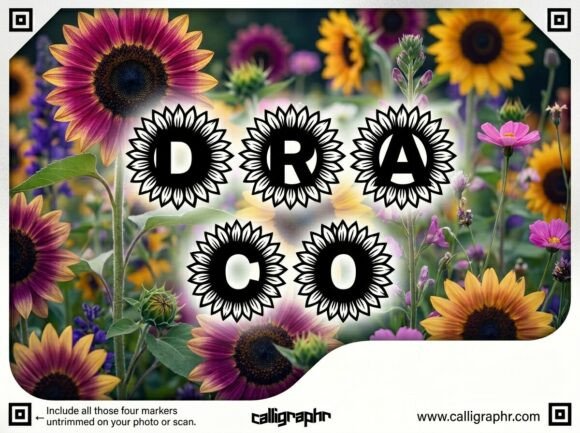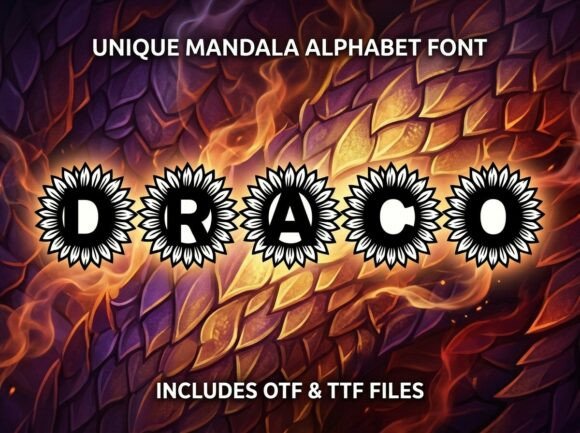
Unleash the Mystical Power of Draco Font: A Spiritual and Legendary Display Font
Are you a designer or craft looking for a font that can capture the essence of the mystical and legendary? Look no further than Draco Font, a high-impact display font that embodies a spiritual and legendary soul. This stunning font features bold, solid letterforms uniquely encased within rhythmic, hand-drawn mandala sunbursts, reminiscent of ancient dragon scales or sacred floral geometry.
The Inspiration Behind Draco Font
Draco Font is inspired by the mystical and legendary creatures of ancient mythology, particularly the dragon. The font’s design is characterized by its heavy graphic weight and ethereal personality, making it perfect for designs that require a sense of power, spirituality, and mysticism. The hand-drawn mandala sunbursts that encase each letterform add a touch of sacred geometry, making Draco Font a unique and eye-catching addition to any design.
Key Features of Draco Font
So, what makes Draco Font so special? Here are some of its key features:
- Bold and Solid Letterforms: Draco Font features bold, solid letterforms that command attention and exude confidence.
- Hand-Drawn Mandala Sunbursts: Each letterform is uniquely encased within a hand-drawn mandala sunburst, adding a touch of sacred geometry and mysticism.
- Ethereal Personality: Draco Font has an ethereal personality that is perfect for designs that require a sense of spirituality and mysticism.
- Heavy Graphic Weight: The font’s heavy graphic weight makes it perfect for high-impact designs that require a bold statement.
Use Cases for Draco Font
Draco Font is a versatile font that can be used in a variety of design projects, including:
- Independent Fantasy Branding: Draco Font is perfect for fantasy brands that require a bold and mystical identity.
- Wellness and Yoga Studio Identities: The font’s spiritual and meditative vibe makes it perfect for wellness and yoga studio identities.
- Esoteric Book Covers: Draco Font is a great choice for esoteric book covers that require a sense of mysticism and spirituality.
- Social Media Headers: The font’s high-impact design makes it perfect for social media headers that require a bold statement.
Tips for Using Draco Font
Here are some tips for using Draco Font in your design projects:
- Use it Sparingly: Due to its bold and heavy design, it’s best to use Draco Font sparingly to avoid overwhelming the design.
- Pair it with Simple Fonts: Pair Draco Font with simple fonts to create contrast and make it stand out.
- Experiment with Colors: Experiment with different colors to find the perfect combination that complements the font’s mystical and legendary vibe.
In conclusion, Draco Font is a powerful and mystical display font that can add a touch of spirituality and legend to any design project. Its bold and solid letterforms, hand-drawn mandala sunbursts, and ethereal personality make it perfect for designs that require a sense of power, mysticism, and spirituality. Whether you’re a designer or craft looking for a font that can capture the essence of the mystical and legendary, Draco Font is the perfect choice.